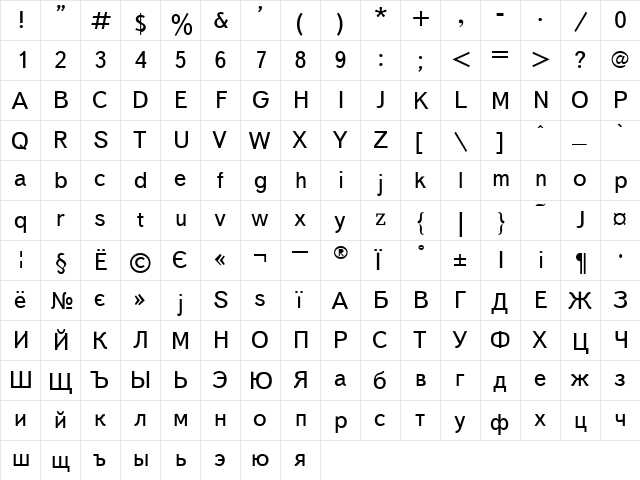
EuroInter Regular
Design Context for EuroInter Typeface
EuroInter is a composed and adaptable typeface that performs quietly and consistently across a wide range of design contexts.